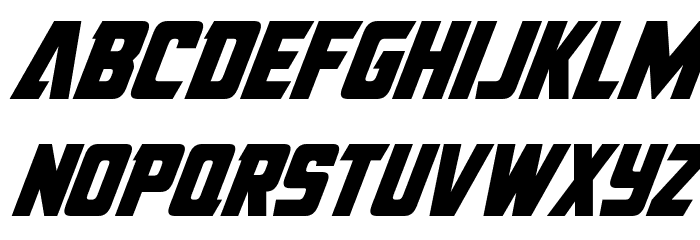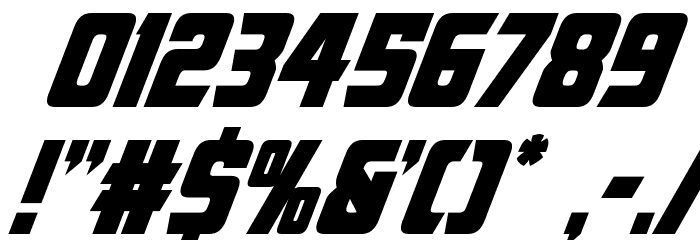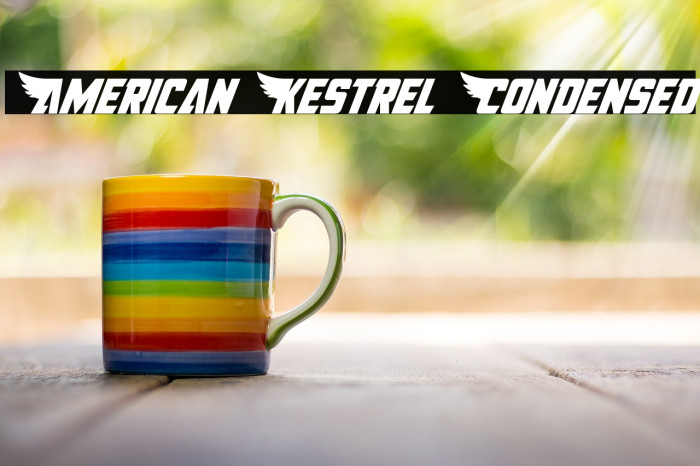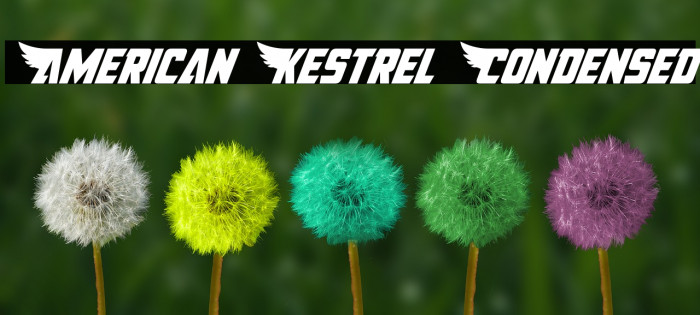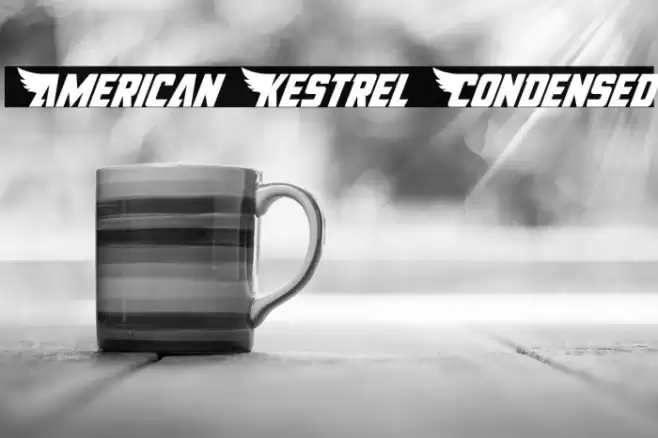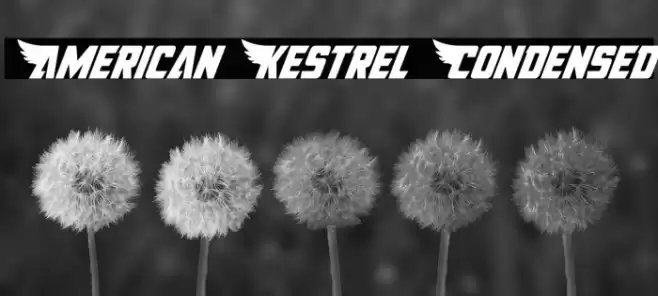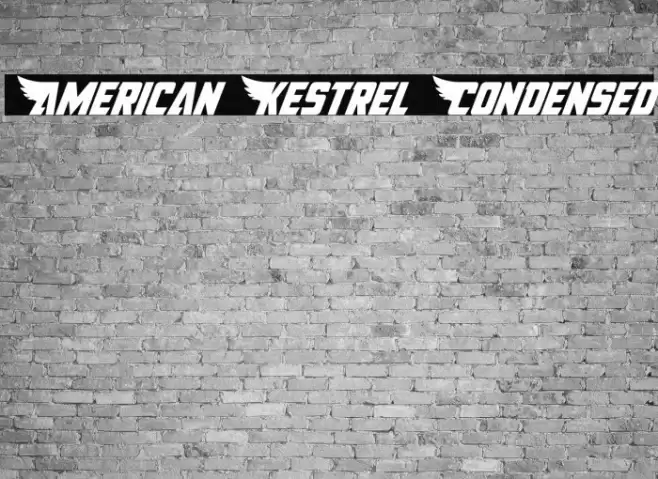
American Kestrel Condensed Font
This font features a bold, dynamic style with a strong emphasis on angular, geometric shapes. The uppercase letters are characterized by sharp edges and a condensed form, giving a sense of speed and motion. The inclusion of wing-like elements on some characters adds a unique, decorative flair. The numerals and special characters maintain the same bold and angular aesthetic, ensuring consistency across all glyphs. This font is designed to capture attention and convey a sense of energy and modernity.
A bold, angular font with a dynamic, geometric style and unique decorative elements.
- Proposed Projects: Ideal for sports branding, action-themed posters, dynamic logo designs, and modern advertising campaigns.